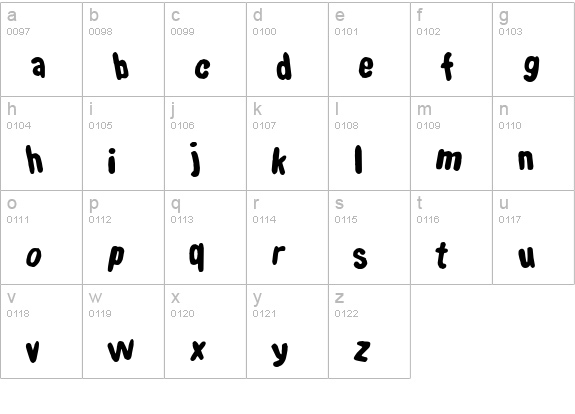
Shake that booty Font Details
Introducing Shake that Booty, a fun and lively font that will add a playful touch to your designs! This unique typeface captures the essence of energy and movement, making it perfect for projects that require a dynamic and vibrant appearance. With its bold and curvaceous letterforms, Shake that Booty font is sure to grab attention and leave a lasting impression. But the best part? Shake that Booty font is absolutely free! Available to download at FontsMarket.com, this font allows you to unleash your creativity without any cost. Whether you're designing a party invitation, a promotional poster, or a catchy headline, Shake that Booty font will bring a lively and joyful vibe to your work. Its distinct style and lively character make Shake that Booty font a versatile choice for various design projects. It's ideal for creating eye-catching logos, attention-grabbing headlines, or adding a touch of playfulness to social media graphics. The smooth curves and energetic strokes of Shake that Booty font will make your text come alive on any medium, whether it's printed or digital. Not only does Shake that Booty font offer a visually appealing design, but it also provides excellent readability. Each letter is carefully crafted to ensure legibility, even at smaller sizes. This makes Shake that Booty font a practical choice for any project that requires both style and clarity. So why wait? Download Shake that Booty font for free at FontsMarket.com and let your designs dance with excitement. Whether you're a professional designer or an enthusiastic hobbyist, this font will add a touch of fun and liveliness to your creative endeavors. So go ahead, shake things up and let Shake that Booty font be the life of your design party!